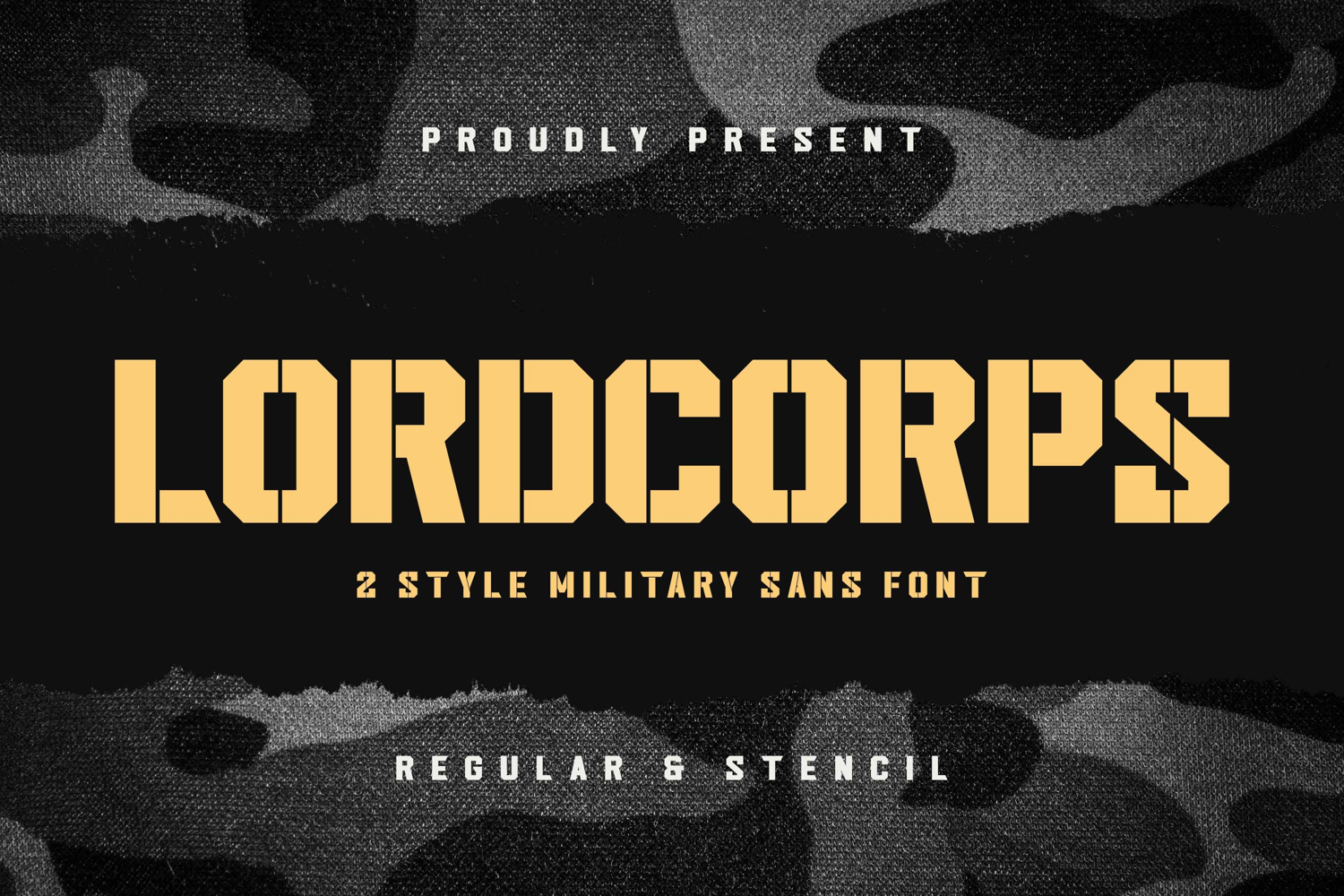
Lordcorps - Stylish Military Sans Font
Lordcorps is a simple and casual display font with a military feel. With its neat and beautiful arrangement of letters, this typeface will look outstanding in both formal and non-formal designs.